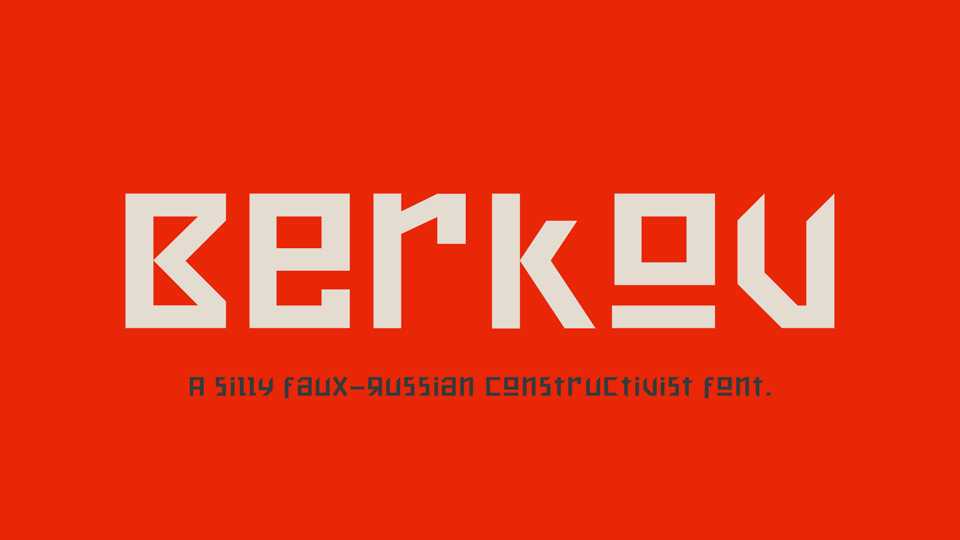
Download Berkov font, a silly faux-Russian Constructivist display font. Berkov perfectly fits for posters, headlines, bold messages and other authentic projects.